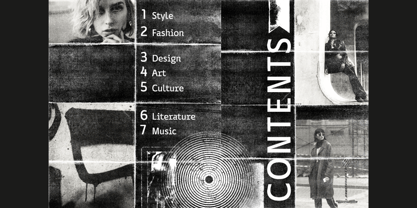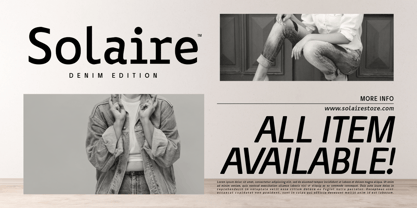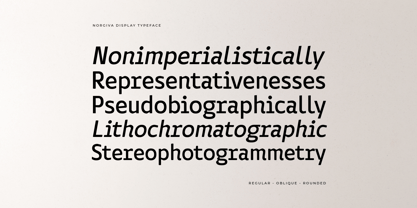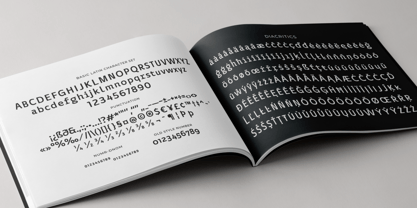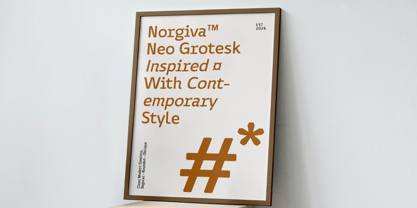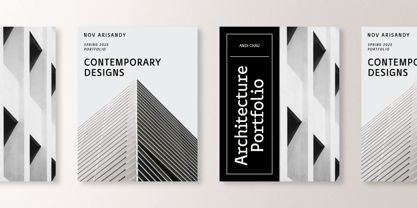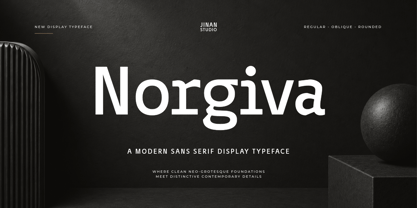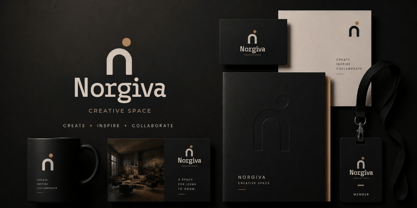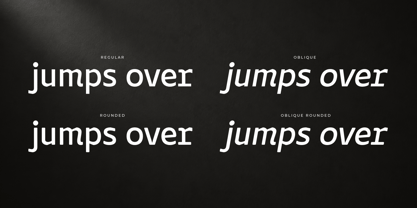
Norgiva
by Jinan Studio
Norgiva is a modern sans serif display typeface inspired by clean neo-grotesque principles and refined with contemporary details. It combines balanced proportions, smooth curves, and subtle rounded elements to create a look that feels modern, clean, and approachable.
Designed with a strong yet minimal character, Norgiva offers excellent visual impact while maintaining clarity and readability. The unique terminals and softened construction give the typeface a distinctive personality without becoming overly decorative.
Perfect for branding, logos, headlines, editorial design, packaging, websites, social media, and modern visual identities, Norgiva adapts easily across both digital and print applications.
With its combination of timeless structure and contemporary styling, Norgiva brings a fresh and versatile presence to creative projects.
Features
• A set of uppercase and lowercase glyphs
• Number, symbol, and punctuation
• Multilingual Support
• Alternate